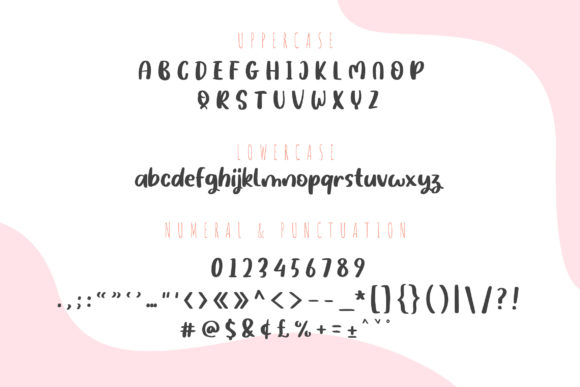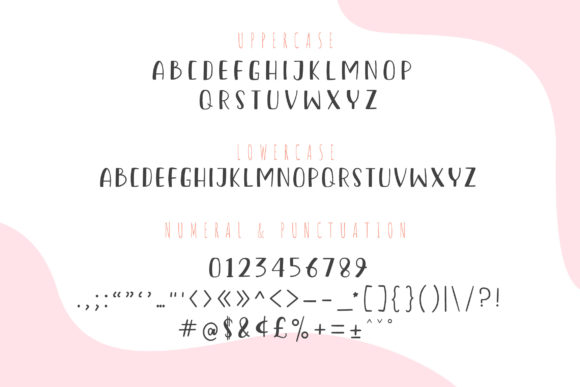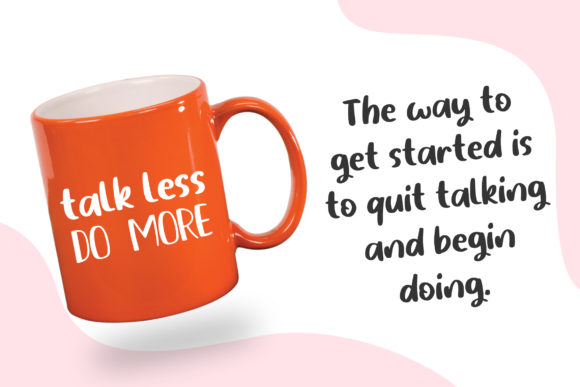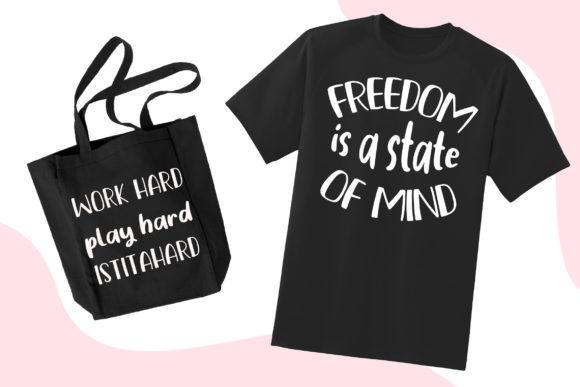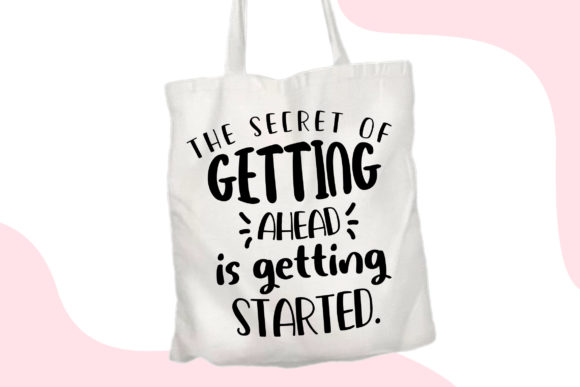
Introduction to Raynam Sonary Font
Do you ever find yourself staring at a blank page, searching for the perfect font to bring your creative vision to life? The frustration is real, but what if I told you there’s a secret to unlocking the perfect design? Meet the Raynam Sonary Font, a delightful, whimsical handwriting font that’s about to become your new best friend.
Imagine adding a sprinkle of magic to your next creative project – be it a children’s book, a wedding invitation, or a social media post. The Raynam Sonary Font is the perfect design resource to make your ideas stand out. With its high-quality, transparent background, this free download is a must-have for any designer looking to elevate their work.
Whether you’re a seasoned pro or just starting out, the Raynam Sonary Font is a valuable addition to your design toolkit. So why wait? Dive into the world of creative possibilities with this enchanting font and discover how it can take your projects to the next level.
Key Features of Raynam Sonary Font
- Unique, high-quality design perfect for creative projects and design resources
- Transparent background for seamless integration into your design
- High-resolution font files for crisp and clear display on high-resolution screens
- Includes a wide range of characters, including uppercase and lowercase letters, numbers, and special characters
Honest Review: Raynam Sonary Font
I recently stumbled upon the Raynam Sonary Font while searching for a design resource for my current creative project. As a designer, I was excited to explore this font and see if it would meet my expectations.
Firstly, I was pleased to find that the font is available for free download, making it an excellent option for designers on a budget. The quality of the font is also impressive, with clean lines and a modern aesthetic.
What works well: ✨ The font has a transparent background, which makes it easy to use in various design contexts. It also comes in multiple weights and styles, allowing for a high degree of customization.
Limitations: ⚠️ The font may not be suitable for use in situations where a bold, attention-grabbing font is needed, as it can come across as a bit subtle. Additionally, the font family is relatively small, so it may not be as versatile as some other fonts on the market.
Overall, I was impressed with the Raynam Sonary Font and would recommend it to designers looking for a high-quality, free design resource. While it may have some limitations, its clean design and customization options make it a great addition to any design toolkit.
The Raynam Sonary Font is perfect for creative projects that require a unique and elegant touch. Use it in logos, invitations, and other design elements to add a touch of sophistication.